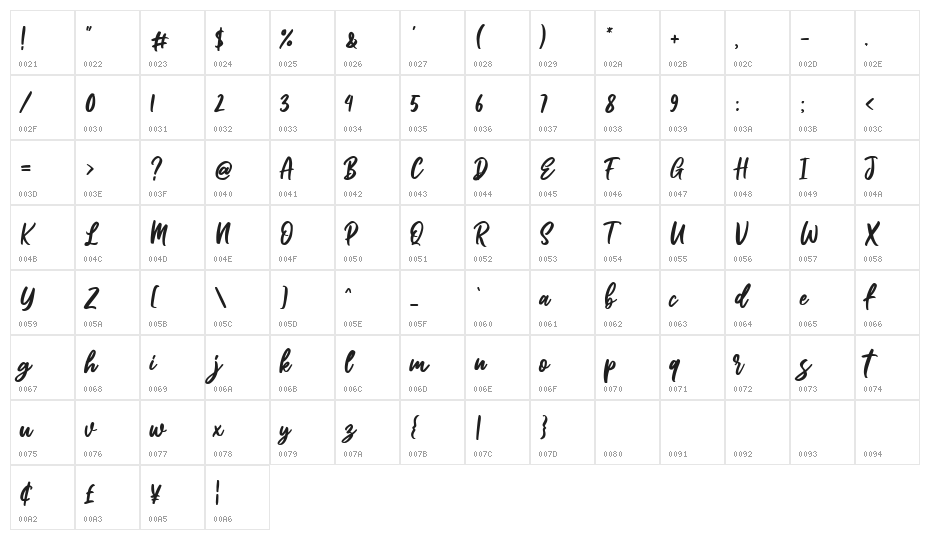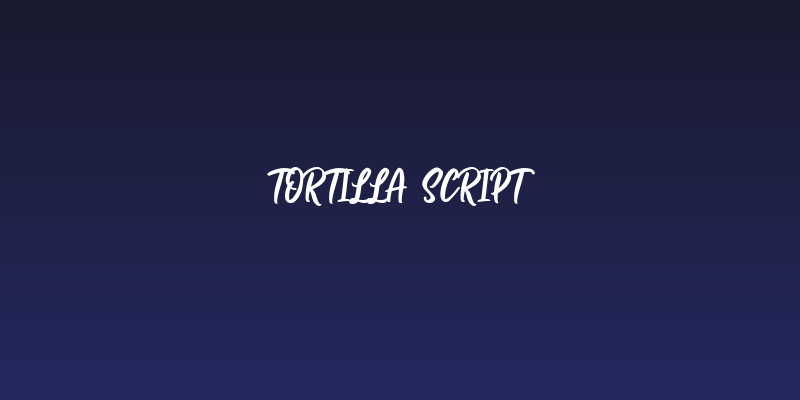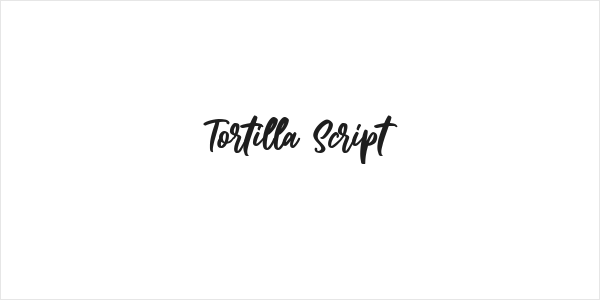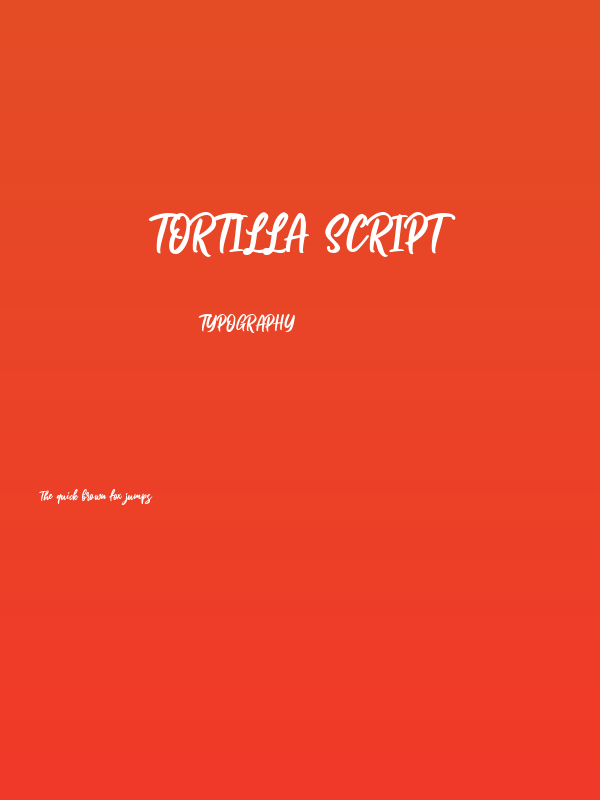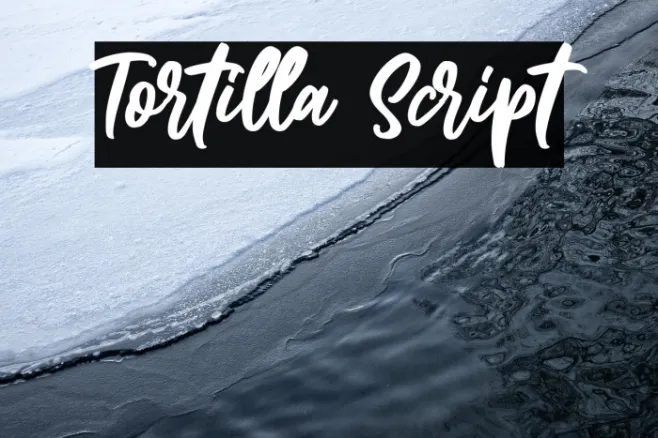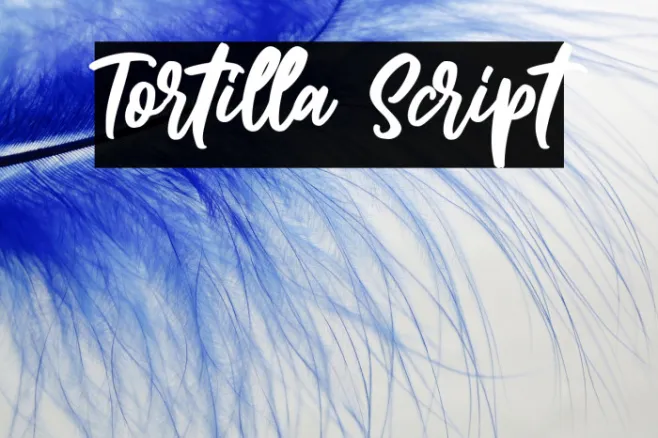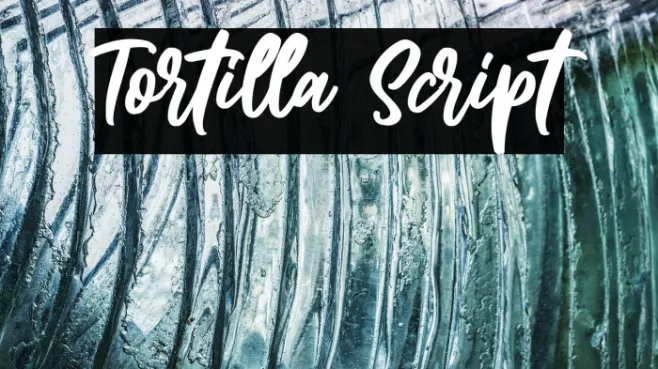
Tortilla Script Font
Tortilla Script Description
This script font exudes a lively and dynamic energy with its bold, flowing strokes and playful curves. The uppercase letters are characterized by their dramatic loops and swashes, giving a sense of movement and flair. The lowercase letters maintain a consistent rhythm, with smooth connections and a casual elegance. Numbers and special characters are crafted with the same attention to detail, ensuring a cohesive look throughout. This font is perfect for projects that require a personal touch, such as invitations, greeting cards, or branding materials that aim to convey warmth and creativity.
| Proposed Projects | Ideal for invitations, greeting cards, branding, and creative projects. |